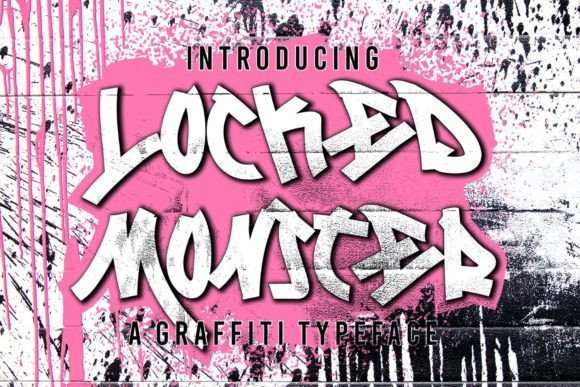
Introducing Locked Monster Font, a stunning display font that exudes the very essence of contemporary graffiti art. Unleash your creativity and elevate your designs to new heights with this remarkable font, crafted by the skilled hands of asf-graphics.
Locked Monster's bold and distinctive characters bring a touch of urban charm to any project. Perfect for Cricut Label designs, this font adds a personal flair to your creations, whether it's a captivating logo, an eye-catching magazine title, or an unforgettable label for your homemade products.
With its sharp angles and dynamic flow, Locked Monster is a true game-changer. Turn heads and leave a lasting impression with every design you create, whether it's for branding, wedding invitations, movie titles, or even crafting projects.
This font family is not just another collection of letters; it's an art form that captivates and inspires. Make a bold statement, stand out from the crowd, and let your designs speak volumes with Locked Monster.